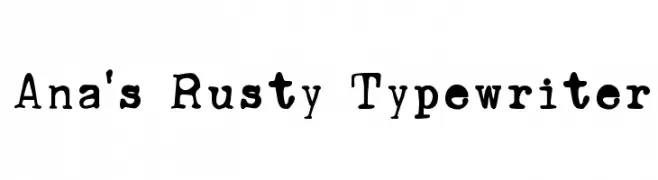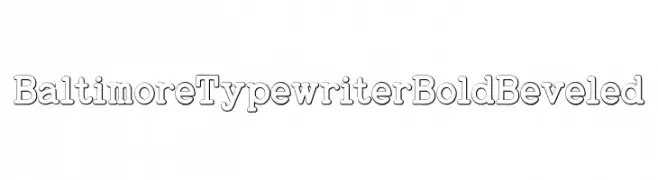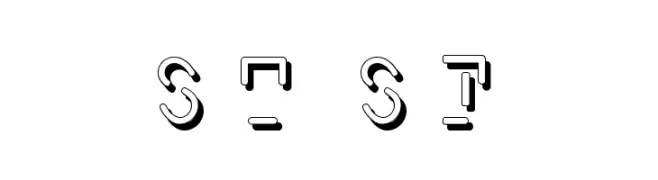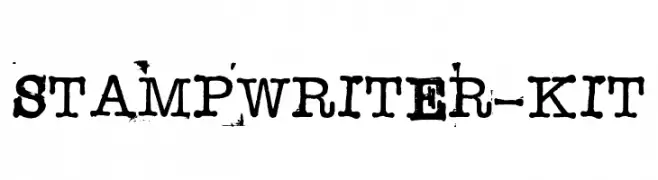
A monospaced, typewriter-style font with a clean and structured appearance.
A distressed, vintage typewriter-style serif font with a textured appearance.
A vintage, typewriter-style font with a rough, textured appearance.
A distressed, monospaced font with a vintage typewriter aesthetic.
A bold, italicized font with a textured, typewriter-like appearance.
Bold, italicized font with a textured, vintage typewriter style.
A rugged, distressed font with a vintage typewriter style.
A bold, textured serif font with a vintage, typewriter-inspired style.
A bold, monospaced font with a typewriter-like aesthetic.
A distressed, vintage typewriter-style font with a bold, textured appearance.
An ornate, decorative font with intricate floral embellishments.
A bold, playful font with characters encased in rounded rectangles, reminiscent of vintage typewriter keys.
A vintage typewriter-style font with a rough, textured appearance.
A playful, bold font with a hand-drawn, vintage typewriter style.
A bold, distressed typewriter-style font with a vintage, grunge aesthetic.
A retro, typewriter-inspired font with bold, enclosed characters.
A bold, decorative font with a vintage typewriter key style.
A bold, decorative serif font with a vintage typewriter key style.
A bold, retro-inspired font with characters enclosed in square borders, reminiscent of typewriter keys.
A bold, decorative font with a vintage typewriter key style.
A monospaced font with a classic, typewriter-inspired design.
A bold, monospaced font with a classic typewriter style.
A bold, textured font with a vintage typewriter aesthetic.
A vintage, typewriter-style font with textured, irregular edges.
A bold, textured font with a vintage, typewriter-like appearance.
A vintage typewriter-style font with a distressed, hand-crafted look.
A bold, distressed typewriter-style font with a vintage aesthetic.
A bold, distressed typewriter-style font with a vintage, textured appearance.
A bold, geometric font with angular lines and circular dots, offering a modern and artistic style.
A vintage, typewriter-style font with a distressed, rugged texture.
A geometric, angular font with hexagonal shapes and consistent line thickness.
A classic serif font with semi-bold weight and moderate contrast, ideal for traditional designs.
A classic serif font with elegant, thin strokes and subtle curves.
A bold, high-contrast serif font with dramatic and elegant features.
A classic serif font with semi-bold weight and elegant, flared serifs.